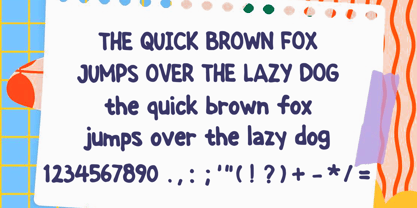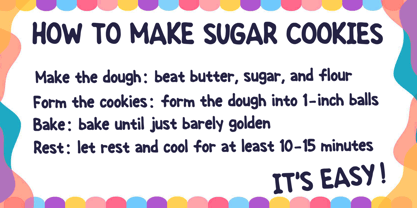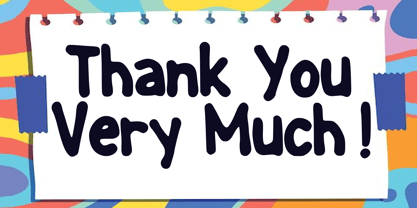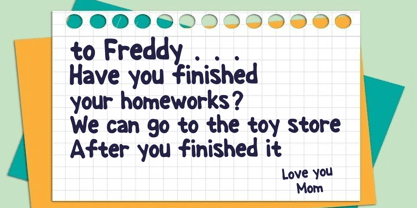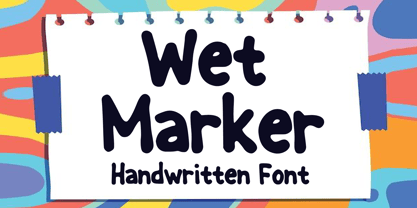
Wet Marker
by Mvmet
The Wet Marker Font Family was designed by Gabriel Valentinus and published by Mvmet. Wet Marker contains 1 styles.
Introducing "Wet Marker", a vibrant, bold typeface with the charm and casual spontaneity of hand lettering. Its versatility ranges from t-shirt and book designs, stretching creatively into greeting cards, stickers, and posters. Its quirkiness even cradles the world of packaging designs. Imbued with an effortless casual touch, Wet Marker is a brilliant choice for anyone seeking to infuse their designs with a dash of fun. Offering endless style flexibility, Wet Marker stands poised to help you craft designs that not only entice but also enchant!
Designers: Gabriel Valentinus
Publisher: Mvmet
Foundry: Mvmet
Design Owner: Mvmet
Wet Marker